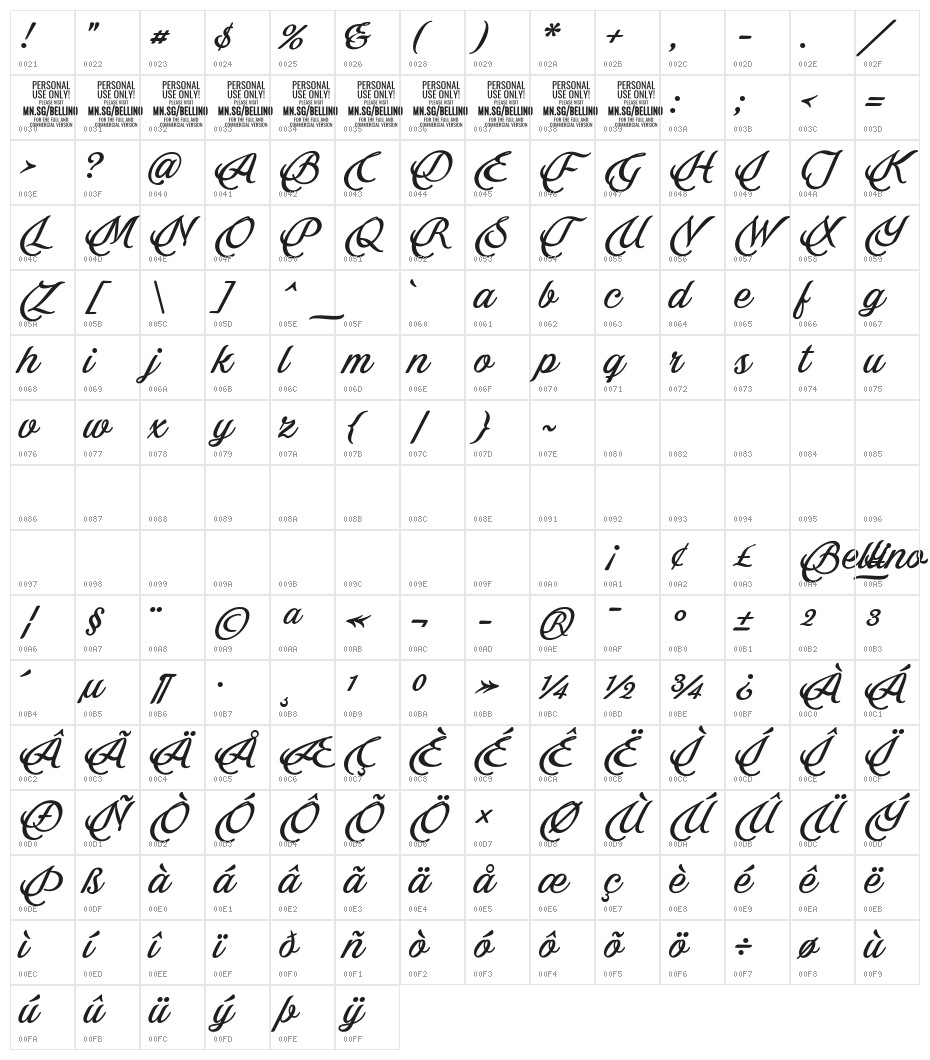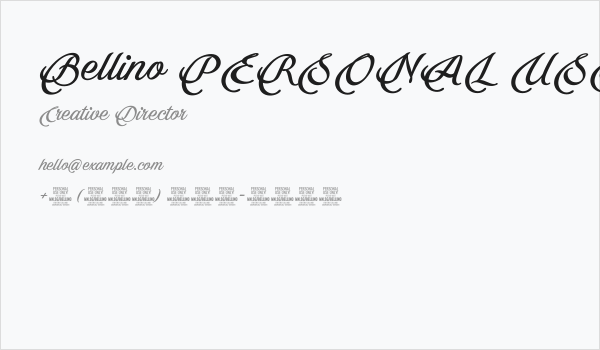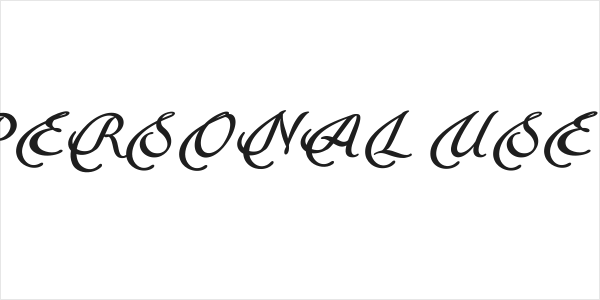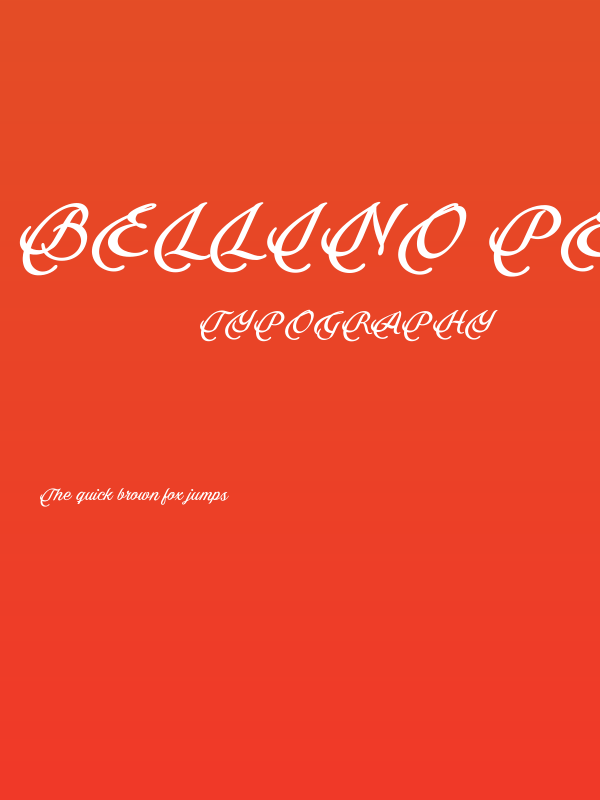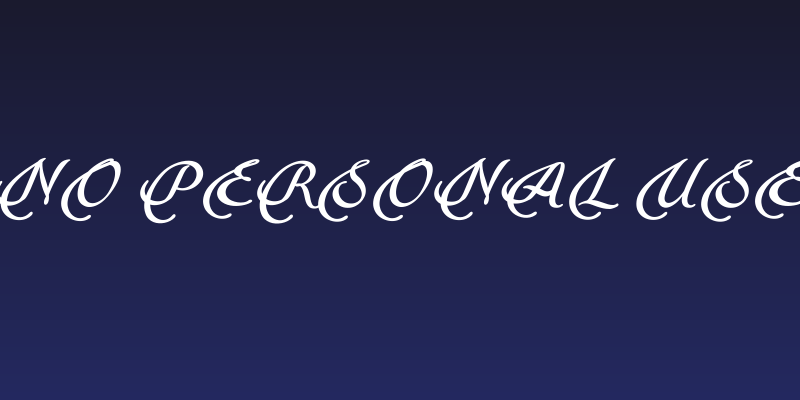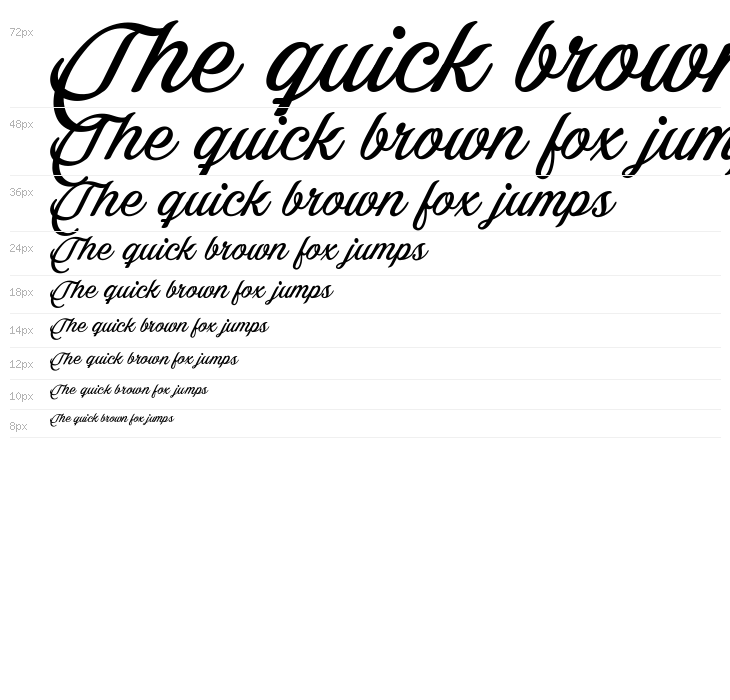
Bellino PERSONAL USE ONLY Font
Bellino PERSONAL USE ONLY Description
This font features a flowing, cursive style with elegant, sweeping strokes that give it a sophisticated and artistic appearance. The uppercase letters are characterized by their dramatic flourishes and loops, while the lowercase letters maintain a consistent, smooth flow. The numerals and special characters are designed to complement the overall cursive aesthetic, maintaining the same fluidity and grace. This font is ideal for projects that require a touch of elegance and personal flair, such as invitations, greeting cards, or branding materials. Its unique style makes it stand out, adding a personal touch to any design.
| Overall Style | Elegant, Artistic |
| Use Case | Headlines, Logos, Decorative text |
| Proposed Projects | Ideal for invitations, greeting cards, branding materials, and artistic designs. |